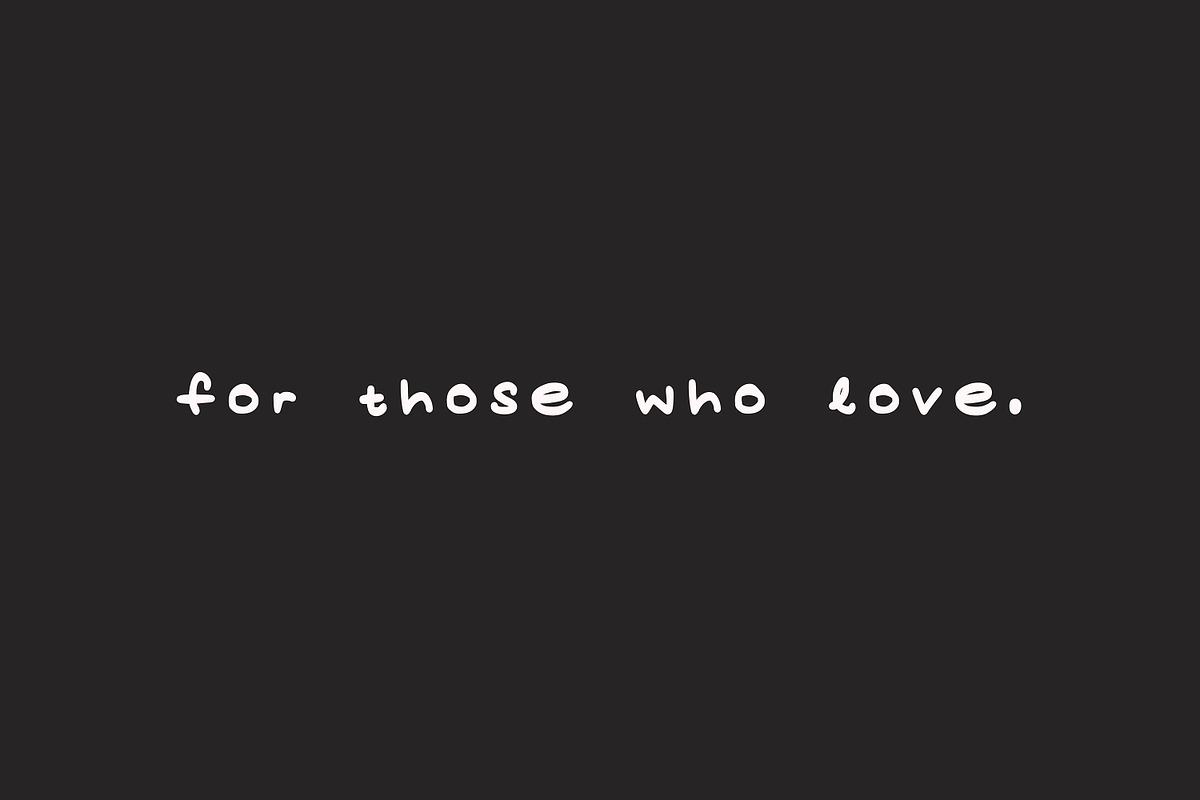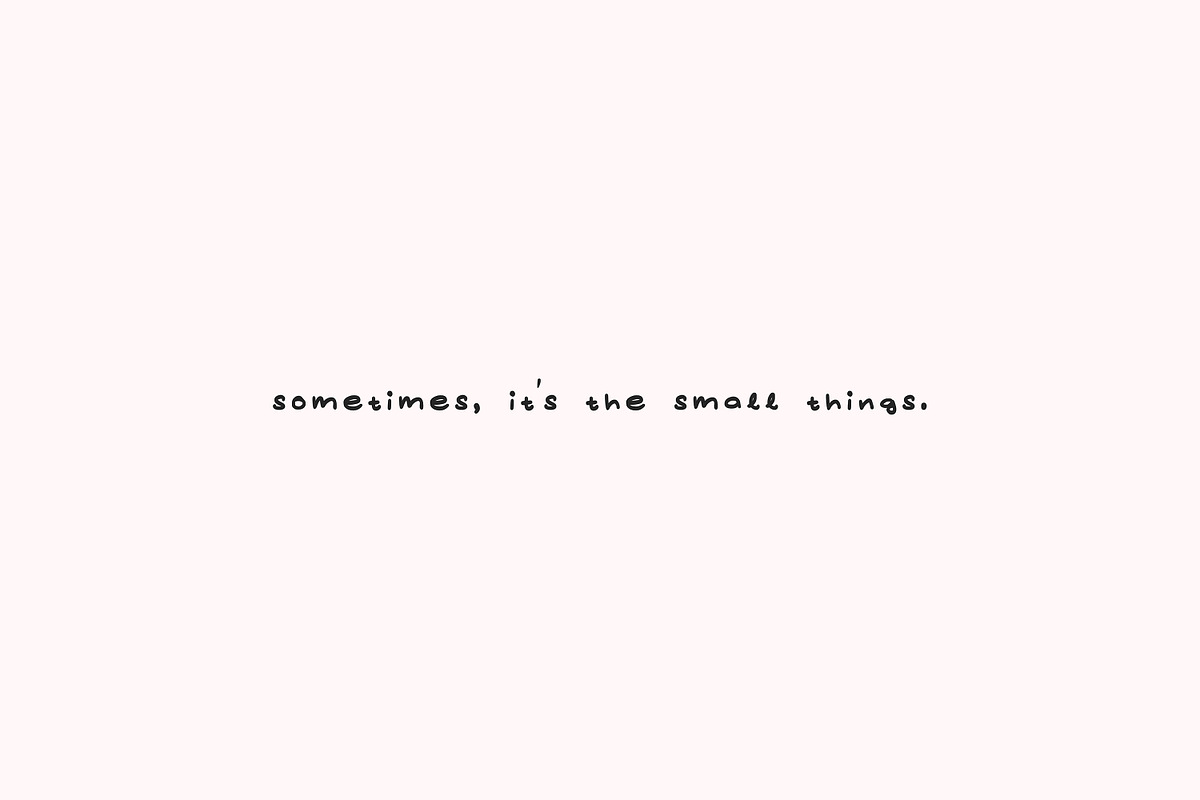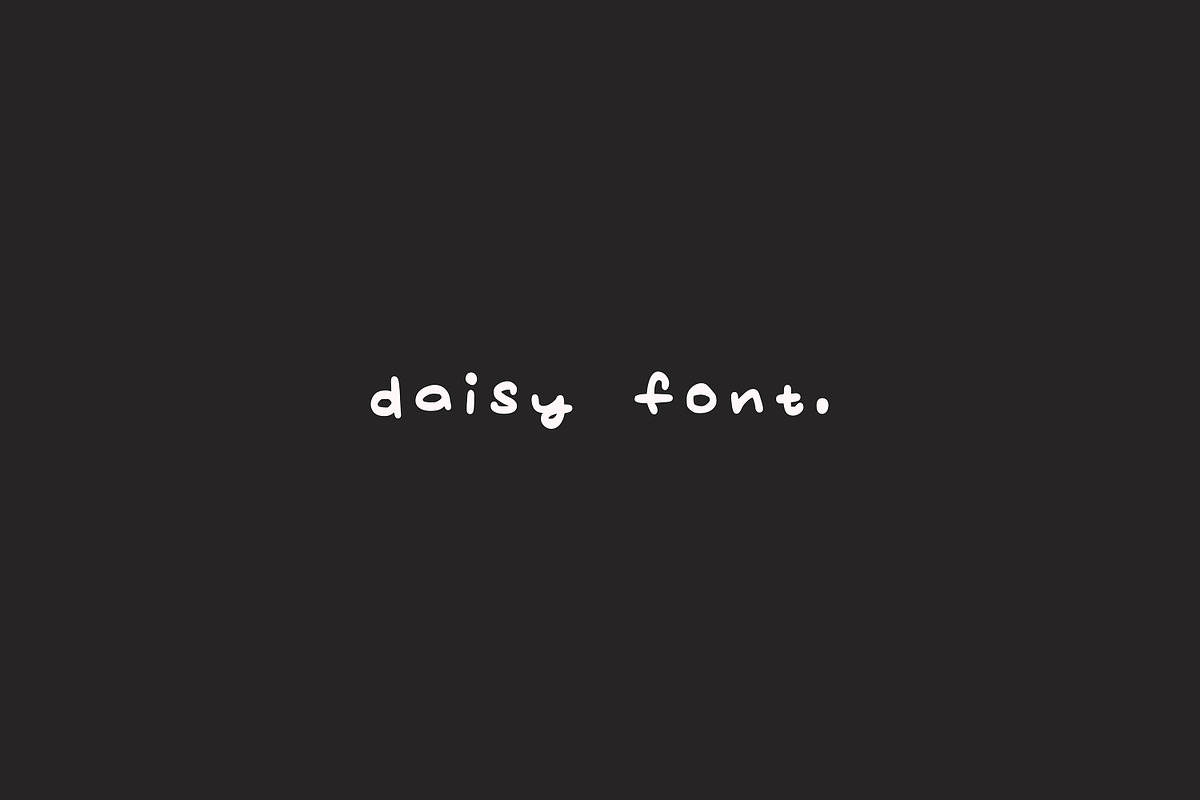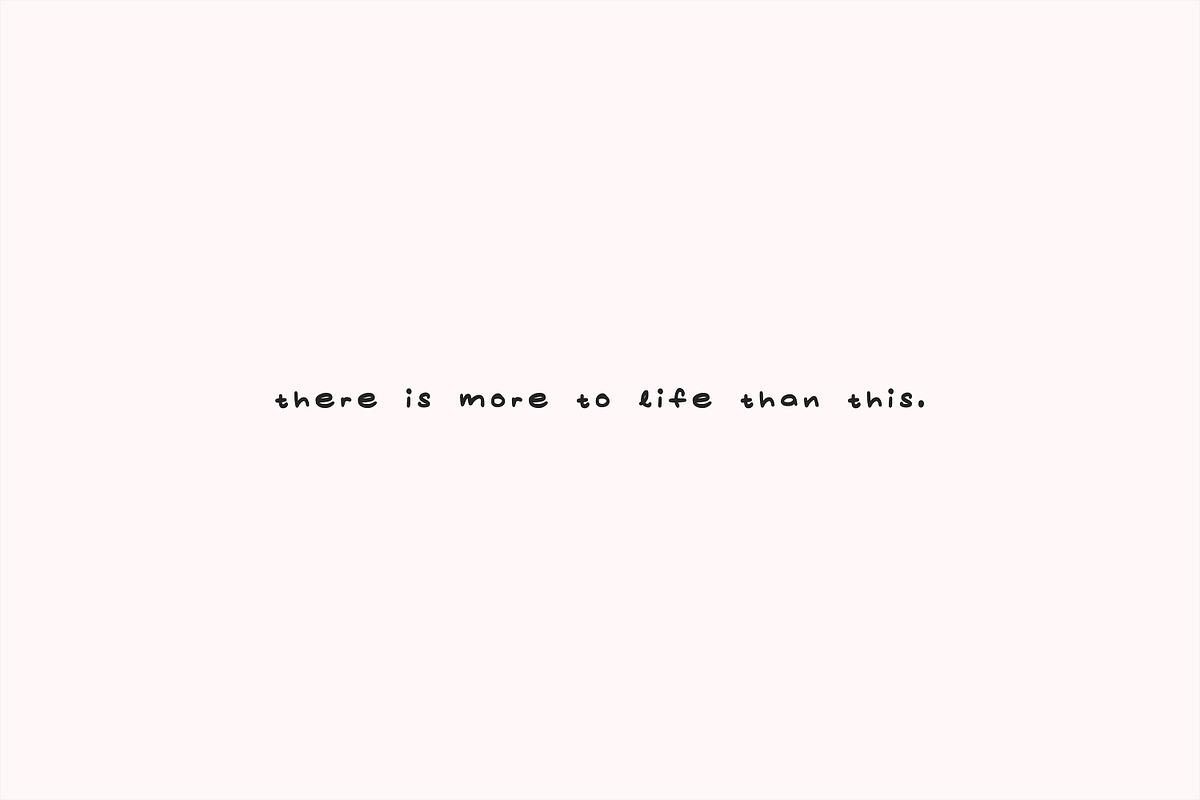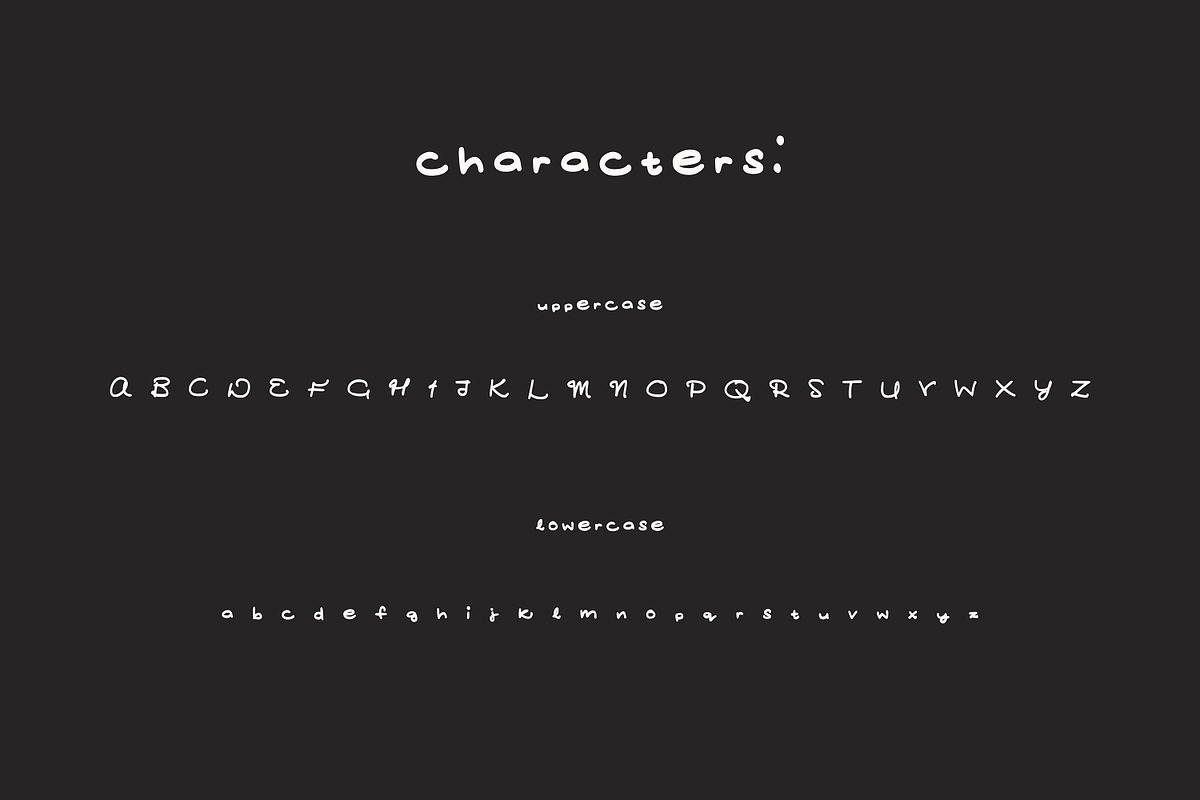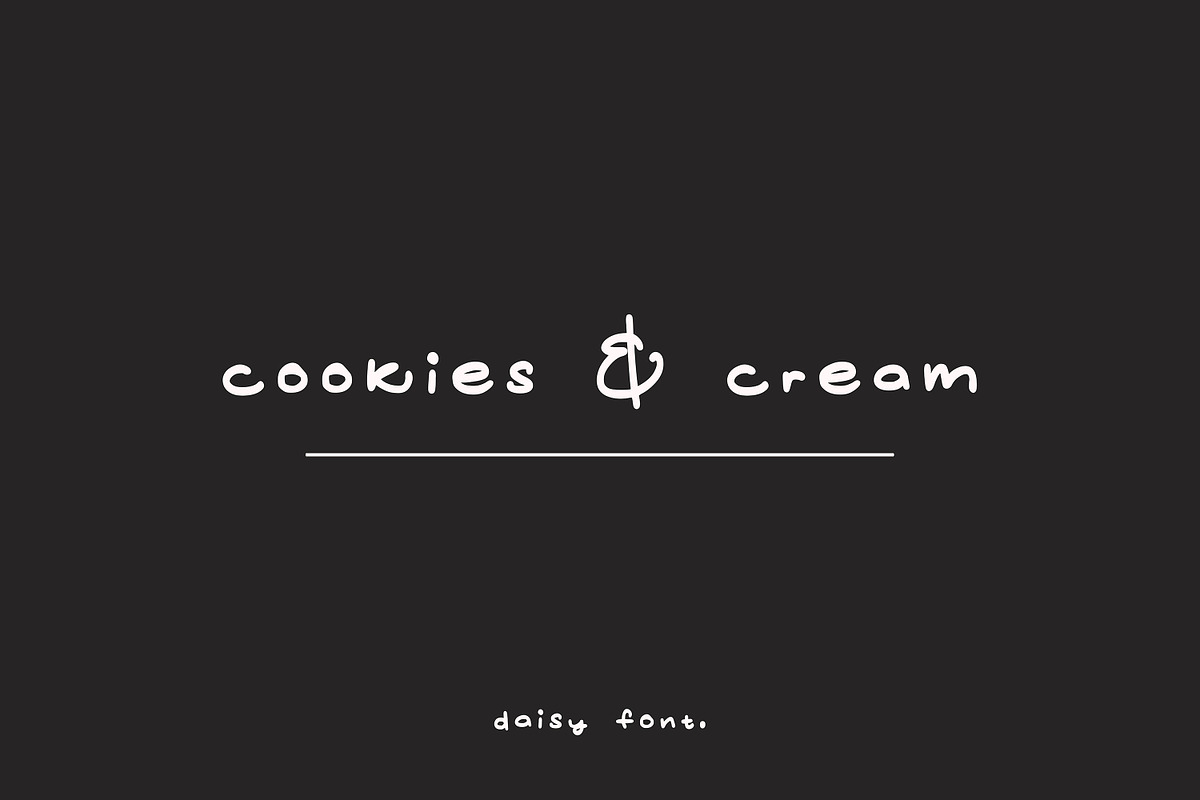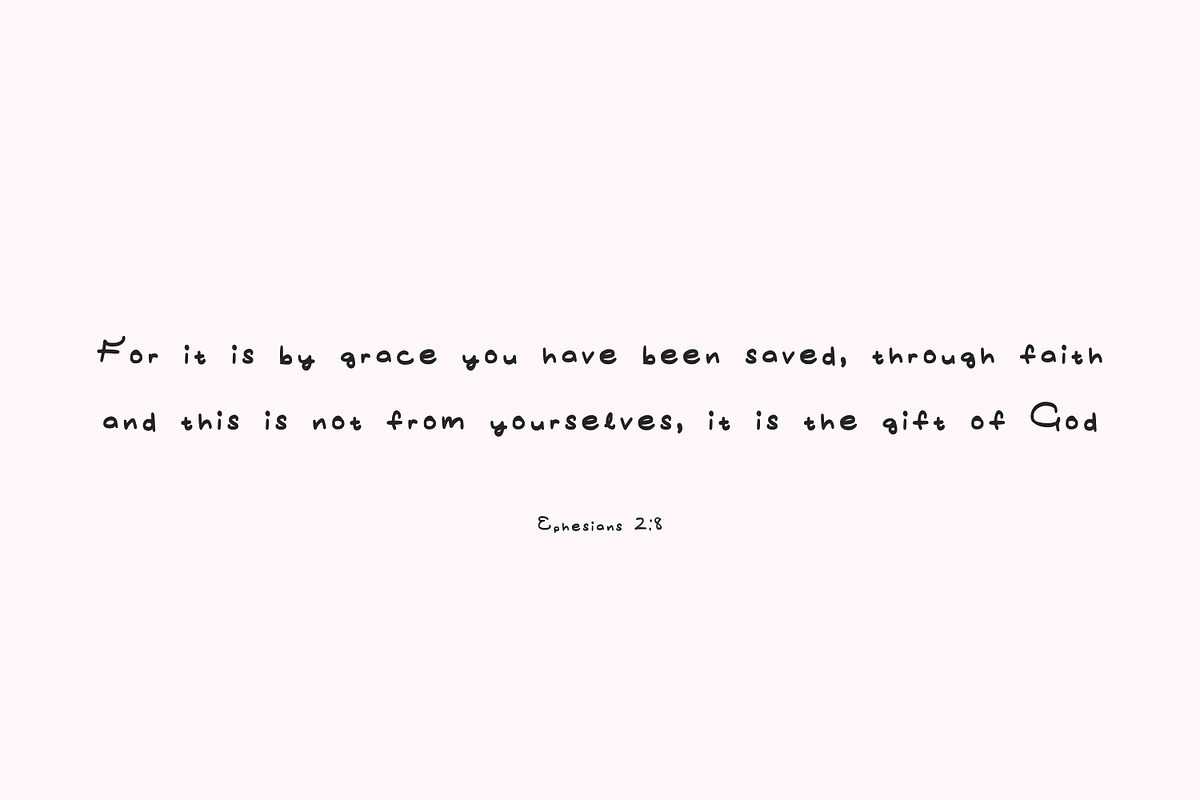
Daisy | Handwritten Font
Daisy is a quirky, whimsical handwritten font, crafted to add an edge of personality and softness to your designs.
For the wanderer, the romantic and the hopeful.
Daisy | Handwritten Font by Heart + Soul Studios fits naturally into Branding, posters, packaging, typography.